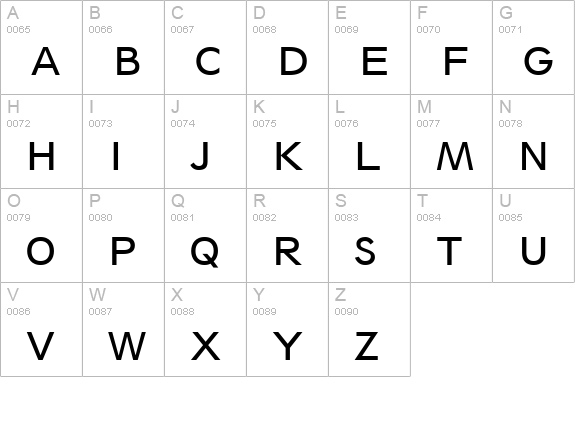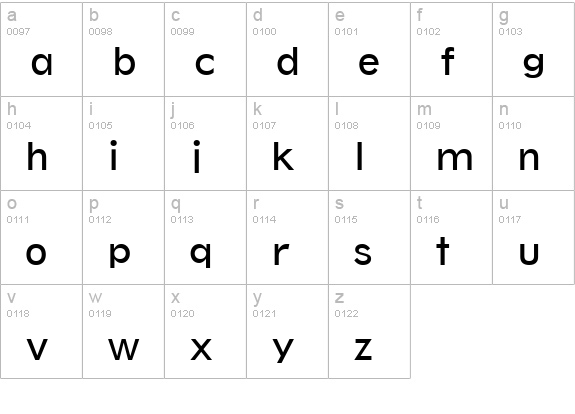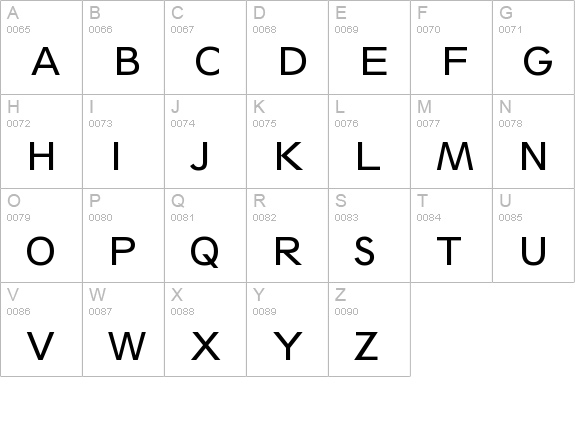
Thinx SSi font is a stunning typeface that effortlessly blends elegance and modernity. With its clean lines, curved edges, and sophisticated letterforms, this font is perfect for any design project that requires a touch of sophistication and style. The beauty of Thinx SSi font lies not only in its aesthetics but also in its versatility. Whether you're designing a logo, creating a website, or crafting a beautiful invitation, this font offers endless possibilities. Its timeless appeal makes it suitable for both contemporary and classic designs, ensuring that your work stands the test of time. And the best part? Thinx SSi font is completely free! You heard it right, this remarkable font is freely available to download at FontsMarket.com. This means that you can add a touch of elegance to your designs without breaking the bank. Say goodbye to expensive font licenses and hello to creative freedom. Downloading Thinx SSi font is a breeze. Simply visit FontsMarket.com, locate the font, and with just a few clicks, it will be yours to use in your projects. The font's user-friendly nature ensures that even beginners can easily incorporate it into their designs, making it a valuable asset for both seasoned designers and novices alike. So why wait? Elevate your designs with Thinx SSi font today. Whether you're working on a personal project or a client's brief, this font is bound to impress. Its unique blend of sophistication and versatility will captivate your audience and leave a lasting impression. And with its free availability, you have nothing to lose and everything to gain. Download Thinx SSi font now and unlock a world of creative possibilities.